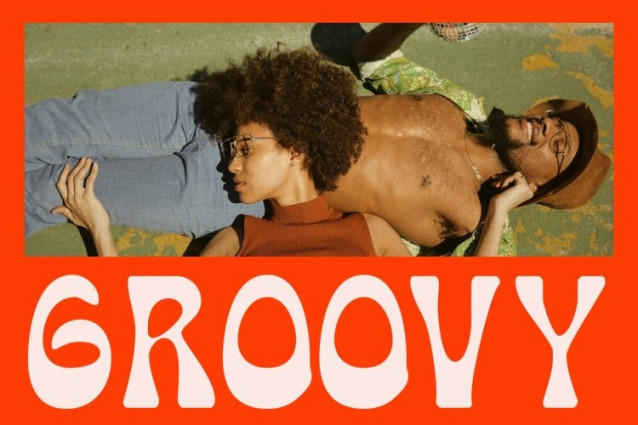
CS Gianela Drawn Font
CS Gianela Drawn Font This is a classic display font that channels the vibrant energy of the 1970s. Its retro, groovy letterforms feature decorative curves and playful proportions, instantly evoking a sense of fun and nostalgia. The font’s dynamic shapes make it perfect for designs that want to capture a lively, upbeat, and funky atmosphere.
Hand-Drawn Effect Adds Organic Texture
The drawn effect gives this font a unique handcrafted quality. Each character carries subtle imperfections and textured strokes, creating a warm, hand-crafted feel that complements its retro aesthetic. This artistic touch makes the font feel energetic, personal, and visually engaging, giving your designs a distinctive, authentic look.
Ideal for Playful Posters, Branding, and Editorial Projects
This font thrives in creative applications where fun and personality are key. Its groovy curves and textured details make it ideal for posters, social media graphics, branding, packaging, or editorial layouts that aim to stand out. The combination of retro flair and hand-drawn charm ensures every design feels vibrant and memorable.
A Typeface That Brings Energy and Personality
This font balances classic 1970s inspiration with modern creative expression. Its playful shapes, decorative curves, and hand-drawn texture make it perfect for designers seeking a font that is both funky and stylish.